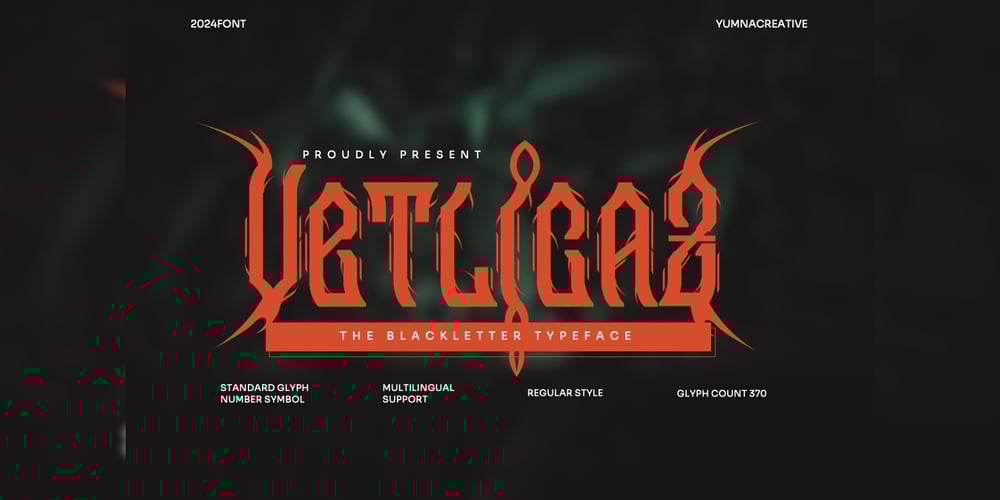
Vetlicaz
Vetlicaz font
Vetlicaz Font Family was designed by Dhimas Habibie and published by Yumnacreative. Vetlicaz contains 1 styles and family package options. Introducing Vetlicaz – Blackletter FontThis Font is a delicate, elegant and flowing handwritten font. It has beautiful and well as a unique blend of ligatures a letter, so that the authors compose it with a and little swirly embedding, so that a modern font is formed and ready to make a statement by adding elegant and unique flair to your next design project. Add it to your most creative ideas and notice how it makes them come alive!FEATURES- Uppercase and Lowercase letters- Alternate and ligature- Numbering and Punctuations- Multilingual Supports- Works on PC or Mac- Simple InstallationHope you Like it.Thanks.